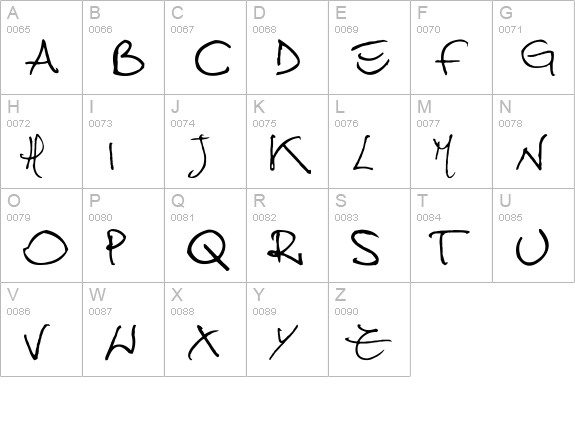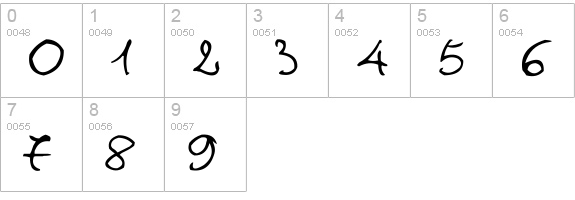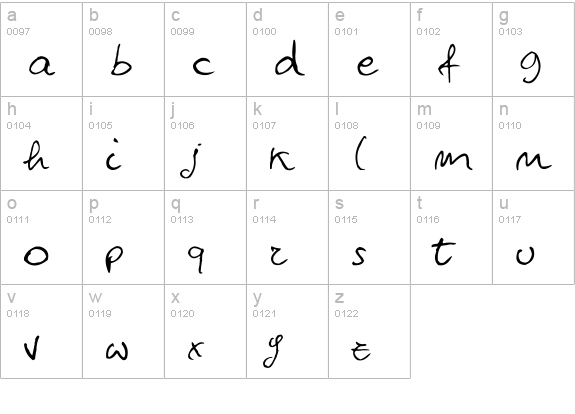
Titti Mileto Font Details
Introducing Titti Mileto, a stunning and versatile font that captivates with its elegant and sophisticated style. Designed with meticulous attention to detail, Titti Mileto is perfect for adding a touch of class and refinement to any project. This font boasts a harmonious balance between classic and modern typography, making it suitable for a wide range of design purposes. Whether you're creating a logo, branding materials, invitations, or editorial designs, Titti Mileto will effortlessly elevate your work to new heights. With its graceful curves and precise lines, Titti Mileto exudes a sense of timeless beauty. Its sleek and legible characters make it easy to read, while its subtle flourishes and unique letterforms add an element of creativity and intrigue. One of the best parts about Titti Mileto is that it is completely free to download at FontsMarket.com. This means that you can enjoy the benefits of this exceptional font without any cost. Whether you're a professional designer or a DIY enthusiast, Titti Mileto is readily available to enhance your projects and inspire your creativity. Don't miss out on this incredible opportunity to elevate your designs with Titti Mileto. Download it today from FontsMarket.com and unlock a world of possibilities. With its blend of elegance, versatility, and affordability, Titti Mileto is truly a font that stands out from the crowd.